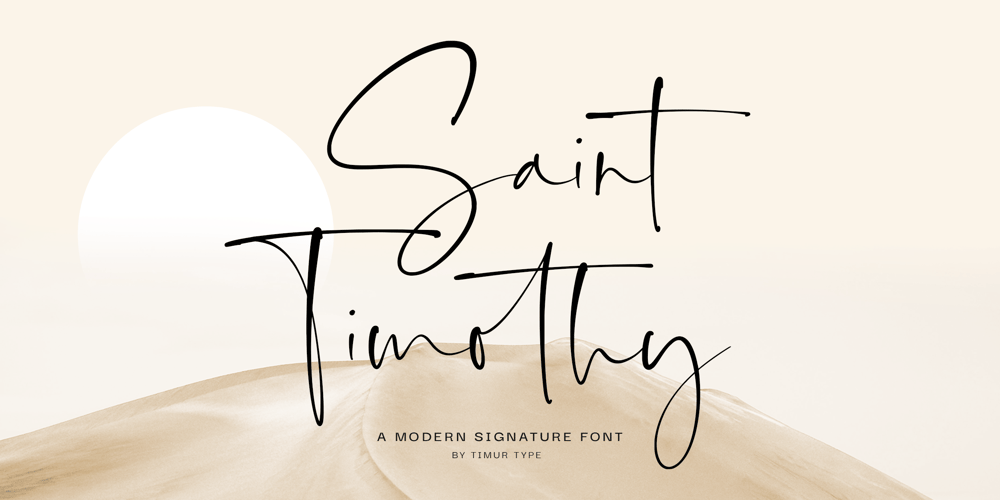
Saint Timothy Font Family was designed by Wara Sigit Tri Pamungkas and published by Timurtype. Saint Timothy contains 1 styles and family package options. Introducing by Timur typeProudly Present, Saint Timothy A Handwritten FontSaint Timothy is perfect for product packaging, branding project, megazine, social media, wedding, or just used to express words above the background.Saint Timothy also multilingual support.Enjoy the font.Thank you!